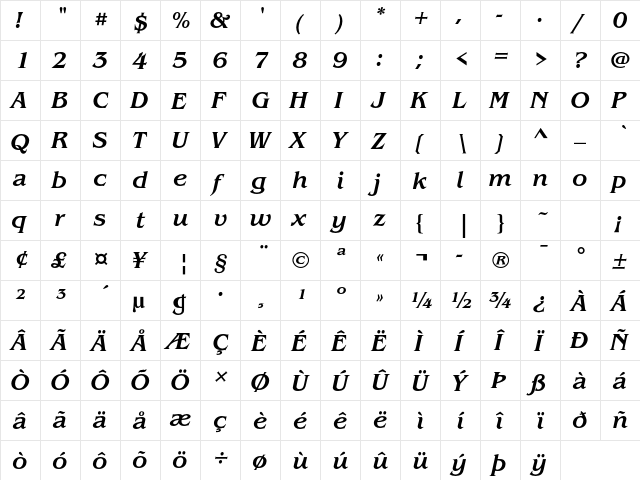
ITC Benguiat Std Medium Italic
| Designer | Ed Benguiat |
Design Context for ITC Benguiat Std Typeface
ITC Benguiat Std offers clean, dependable letterforms without strong stylistic allegiance, making it a practical choice for designers who need flexibility. The dynamic lean of this cut emphasises speed and emphasis in any layout.
Pro Tip: Use ITC Benguiat Std for emphasis, pull quotes, and subheadings where its slanted energy can add rhythm to the layout.